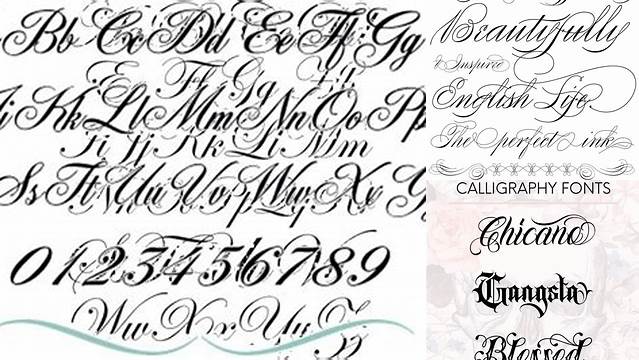
Hey guys! Thinking about getting inked? Awesome! But before you head to the tattoo parlor, let's talk fonts – specifically, tattoo cursive fonts. Finding the perfect font can make or break your design, and lucky for you, there are tons of free tattoo cursive fonts generators out there to help you visualize your ideas. In this article, we’re diving deep into the world of tattoo cursive fonts, exploring different styles, generators, and how to choose the best one for your next piece of body art. So grab a coffee, get comfy, and let's get started!
Understanding Tattoo Cursive Fonts
So, what exactly are tattoo cursive fonts? They're basically fonts that mimic the flowing, connected strokes of handwriting. Cursive fonts add a touch of elegance, personality, and uniqueness to your tattoos. They can be used for names, quotes, dates, or any other meaningful text you want to display on your skin. The beauty of cursive is its versatility; it can be delicate and refined or bold and dramatic, depending on the specific font you choose.
The Allure of Cursive in Tattoo Art
Why are tattoo cursive fonts so popular? Well, they bring a certain timeless appeal to tattoo art. Unlike blocky or modern fonts, cursive evokes a sense of tradition and sophistication. It's like a handwritten letter in ink, carrying a personal touch that resonates with many people. Plus, cursive fonts can be easily customized to fit different tattoo styles and placements, making them a go-to choice for both tattoo artists and enthusiasts. Whether you're aiming for a classic or contemporary look, cursive can seamlessly blend in and elevate your design.
Top Free Tattoo Cursive Fonts Generators
Alright, let’s get to the good stuff – finding those free tattoo cursive fonts generators! The internet is overflowing with options, but not all generators are created equal. Some offer a wider range of fonts, better customization features, or a more user-friendly interface. Here are a few top contenders that you should definitely check out:
1. FontSpace: A Vast Library of Cursive Fonts
FontSpace is a treasure trove for font lovers. With a massive collection of free tattoo cursive fonts, you're bound to find something that catches your eye. The site allows you to preview the fonts with your desired text, making it easy to see how they'll look as a tattoo. Plus, FontSpace is constantly updated with new fonts, so there's always something fresh to discover. The search filters are super helpful for narrowing down your options based on style, weight, and other criteria.
2. DaFont: Classic and Creative Cursive Options
DaFont is another go-to resource for free fonts, including a wide variety of tattoo cursive fonts. What's great about DaFont is its user-friendly interface and clear categorization. You can easily browse through different cursive styles, from elegant scripts to more edgy and modern variations. Each font comes with a preview image, so you can get a quick glimpse of its aesthetic. DaFont also allows you to download fonts for offline use, which can be handy when you're working with a tattoo artist.
3. Pinterest: Inspiration and Font Discovery
Pinterest isn't exactly a font generator, but it's an amazing source of inspiration for tattoo cursive fonts. You can find countless tattoo designs featuring different cursive styles, and often, the pins will link back to the original font source. Pinterest is also a great place to discover new and trending fonts that you might not find on other websites. Create a board specifically for tattoo ideas and start pinning away!
4. Tattoo Lettering Generator: Specifically for Tattoos
As the name suggests, Tattoo Lettering Generator is designed specifically for creating tattoo designs with tattoo cursive fonts. This tool offers a range of customizable options, including font size, color, and background. You can even add symbols and embellishments to your design. What sets Tattoo Lettering Generator apart is its focus on tattoo-friendly fonts that look great on skin. It's a simple but effective tool for visualizing your tattoo idea.
How to Choose the Right Cursive Font for Your Tattoo
Choosing the right tattoo cursive fonts can be tricky, but don't worry, I've got you covered. Here are some factors to consider when making your selection:
Considering Tattoo Placement and Size
The placement and size of your tattoo will greatly influence the type of tattoo cursive fonts you choose. For smaller tattoos, opt for fonts that are clear and legible, even when reduced in size. Avoid overly intricate or thin fonts, as they may blur over time. For larger tattoos, you have more freedom to experiment with bolder and more decorative fonts. Consider how the font will flow with the contours of your body and whether it will be easily visible from different angles.
Matching Font Style with Tattoo Theme
Your font should complement the overall theme and style of your tattoo. If you're going for a traditional or vintage look, choose a classic script with elegant flourishes. For a more modern or edgy tattoo, consider a bolder or more stylized cursive font. Think about the message you want to convey with your tattoo and how the font can enhance that message. A delicate, flowing cursive might be perfect for a romantic quote, while a bolder, more dramatic cursive could work well for a powerful statement.
H3: Obtaining Permission for Specific Font Use Cases
Obtaining permission for specific font use cases is necessary when your intended use of tattoo cursive fonts falls outside the scope of the font’s license agreement. This may include using the font in a way that is not explicitly permitted by the license, such as embedding it in a mobile app or using it for a large-scale advertising campaign. To obtain permission, contact the font designer or foundry that owns the rights to the font. Explain your intended use case and ask for their consent. They may require you to purchase an extended license or pay a fee for the additional usage rights. Be prepared to provide detailed information about how you plan to use the font and the scale of your project. If you are unsure whether your intended use requires permission, it’s always best to err on the side of caution and contact the font designer or foundry for clarification. By obtaining permission for specific font use cases, you can avoid potential legal issues and ensure that you are using fonts ethically and responsibly.